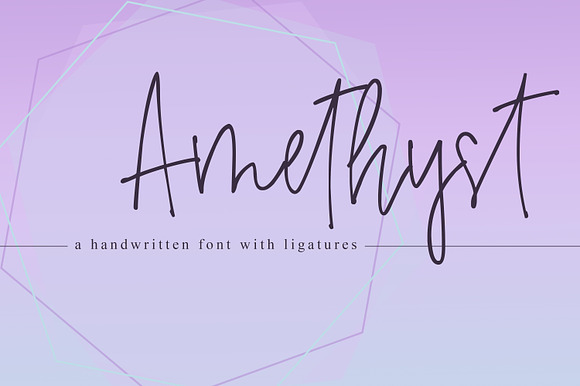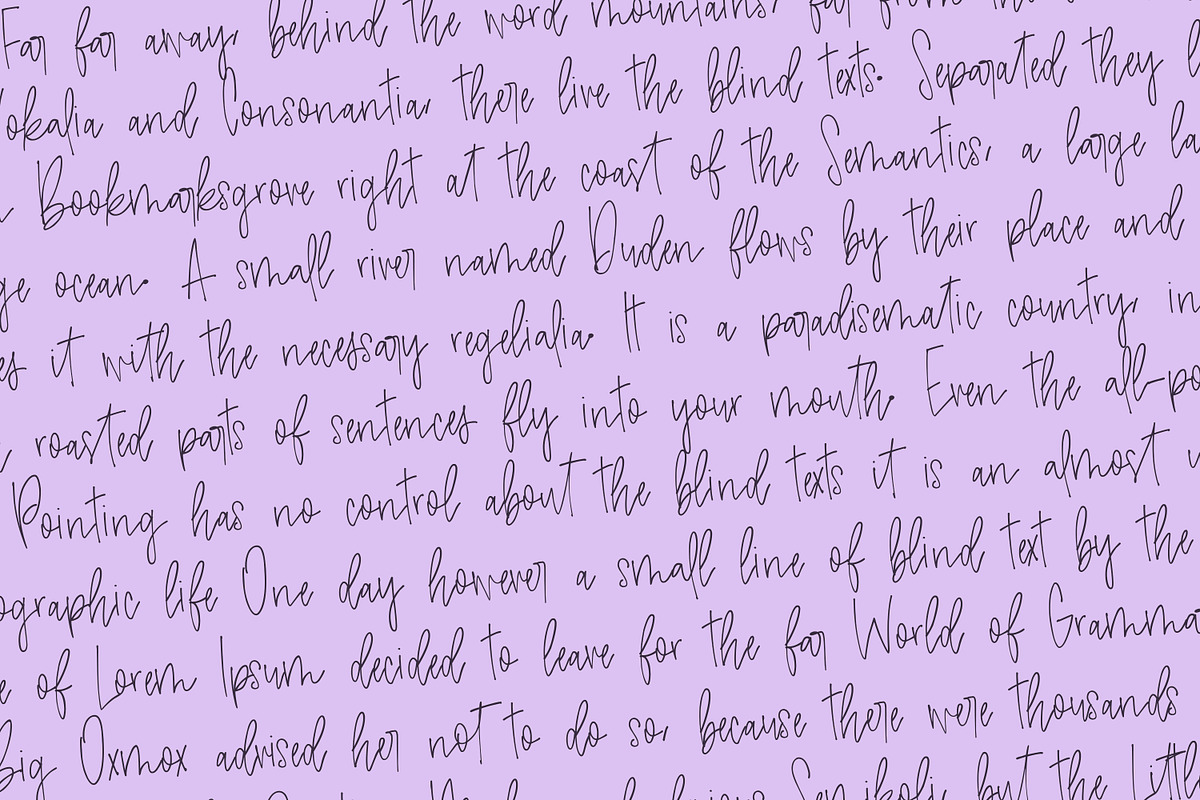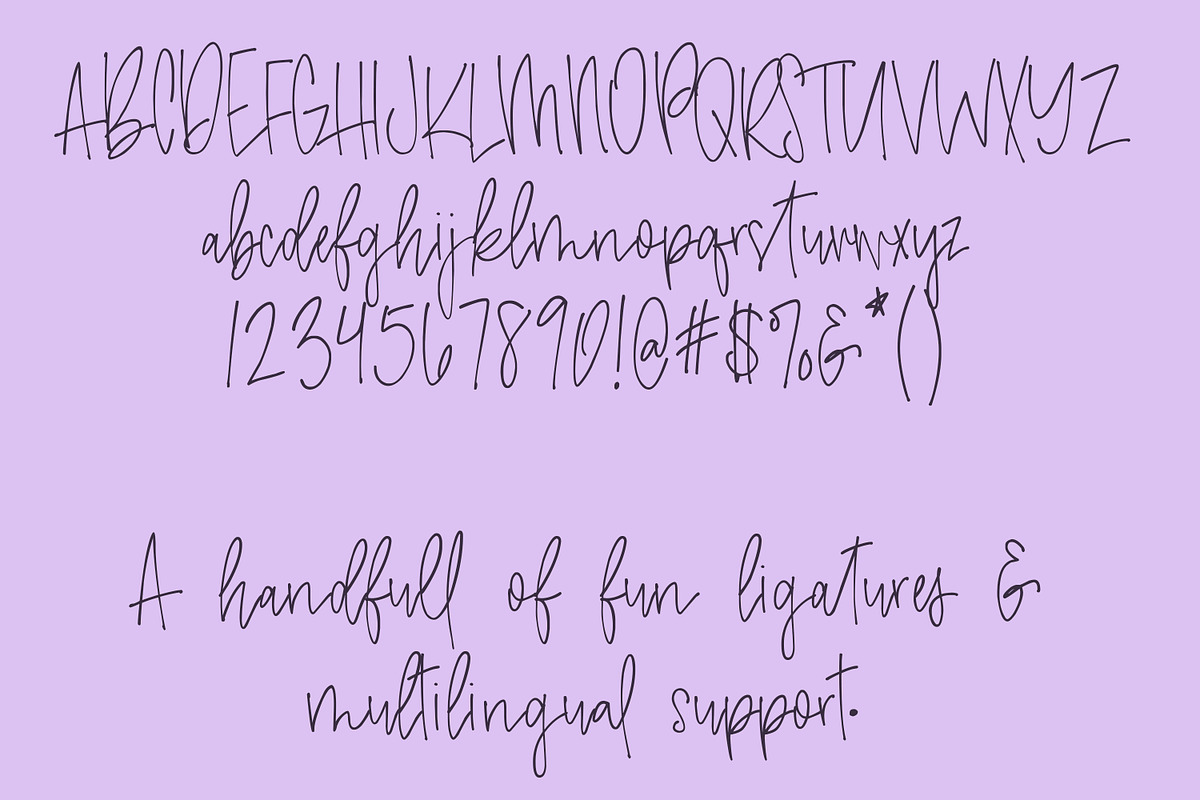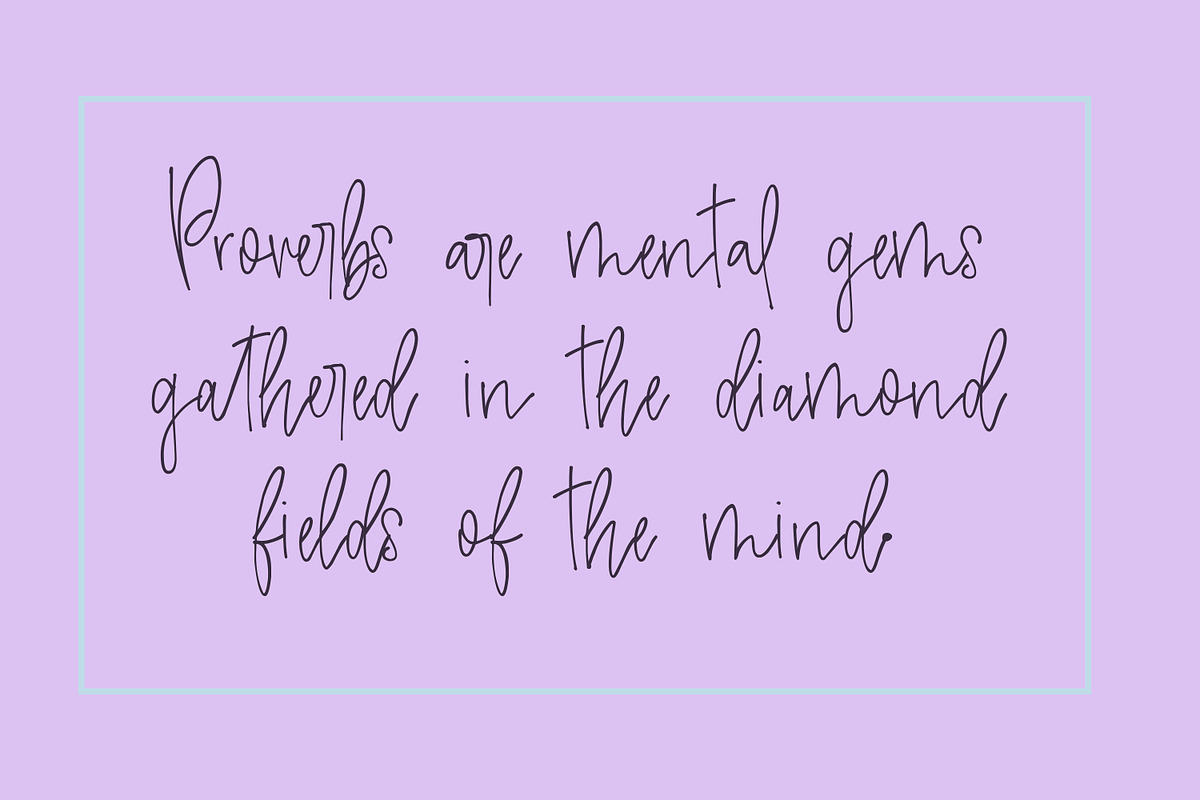
Amethyst | A Signature Font
Amethyst is a delicate, handwritten font with fun ligatures. This font is designed to look just like an easy handwriting, did I succeed? This font pairs lovely with a serif font for all your designing needs, including:
A handful of ligatures
Multilingual support for various languages: French, Spanish, Italian
- Amethyst is a delicate, handwritten font with fun ligatures.